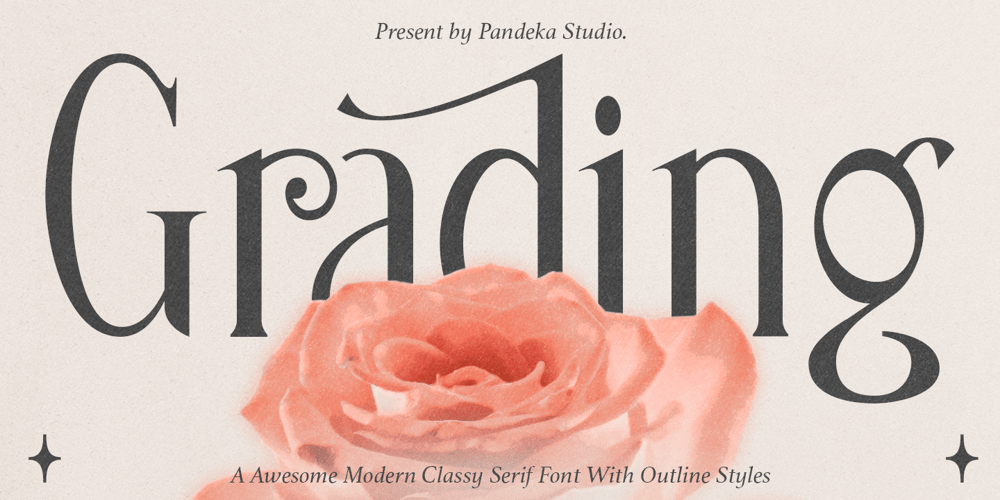
Grading
Grading font
Grading Font Family was designed by Sagara Nararya and published by Pandeka Studio. Grading contains 2 styles and family package options. Introducing the new Grading Modern Ligature Serif!Grading is a modern, elegant and classy serif typeface, best used as a display for headings, logos, branding, magazines, product packaging and invitations. Grading come with clean lines and smooth curves give any project an extra touch of class.Grading was built with OpenType features and includes ligatures, alternate, numbers, punctuation, and it also supports other languages.Features Grading main files Has Special Alternates and Ligatures Instructions (Access special characters in all apps, even in Cricut Design) Accessible in Adobe Illustrator, Adobe Photoshop, Microsoft Word even Canva! PUA Encoded Characters. Fully accessible without additional design software Feel free to follow, like and share. Thanks so much for checking out my shop!Pandeka Studio